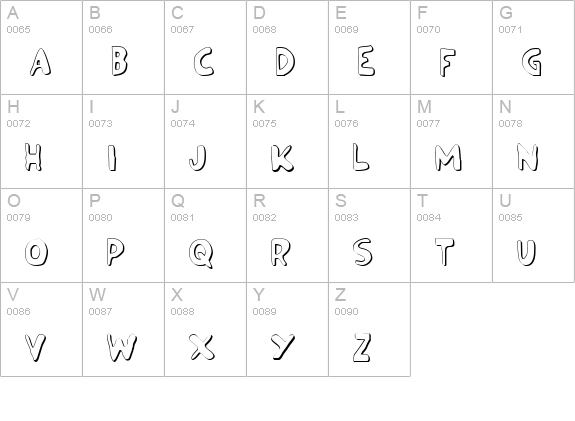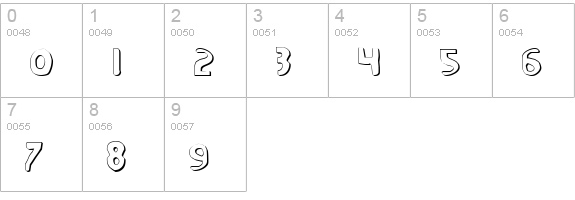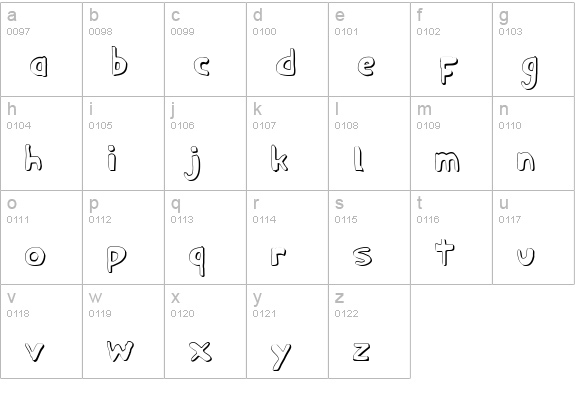
Ozymandias Outline Font Details
Ozymandias Outline font is a stunning display typeface that exudes elegance and sophistication. With its clean lines and modern aesthetic, this font is perfect for adding a touch of style to any design project. The outline style of Ozymandias gives it a unique and eye-catching look that is sure to make a statement. Best of all, Ozymandias Outline font is free to download at FontsMarket.com. Whether you're working on a branding project, a poster design, or any other creative endeavor, this font is a versatile choice that will help your work stand out. Don't miss out on the opportunity to add this beautiful font to your collection today!